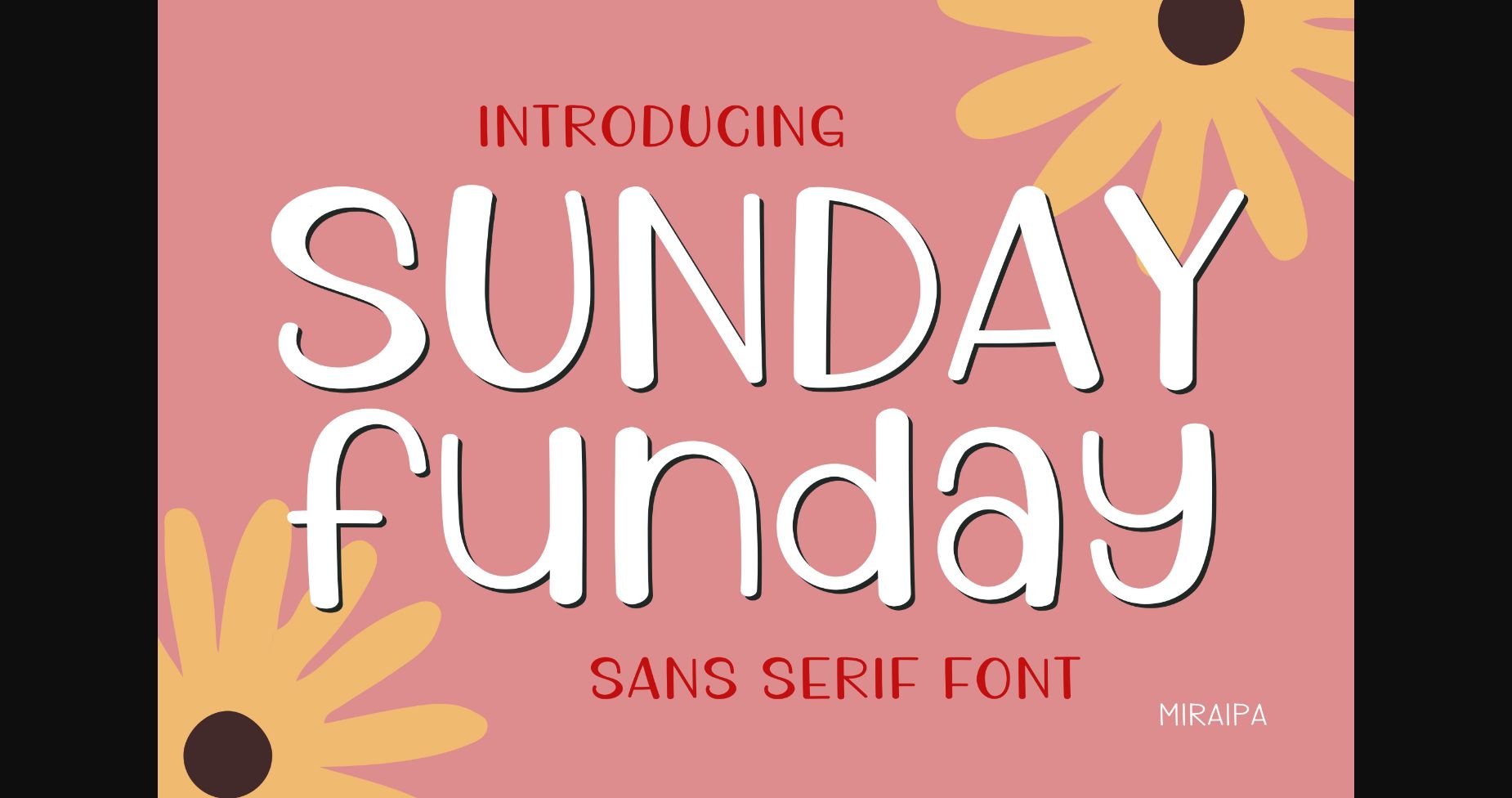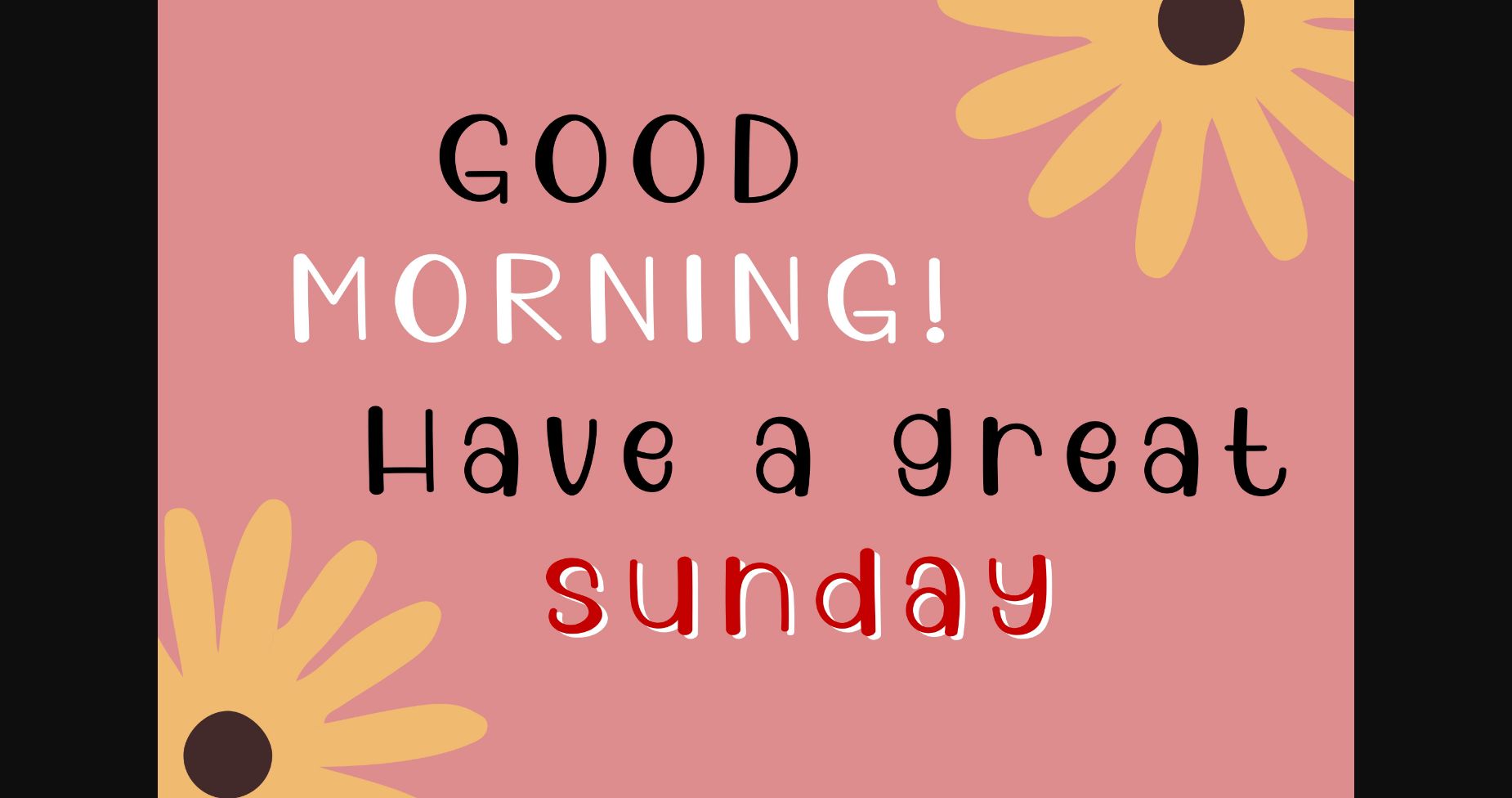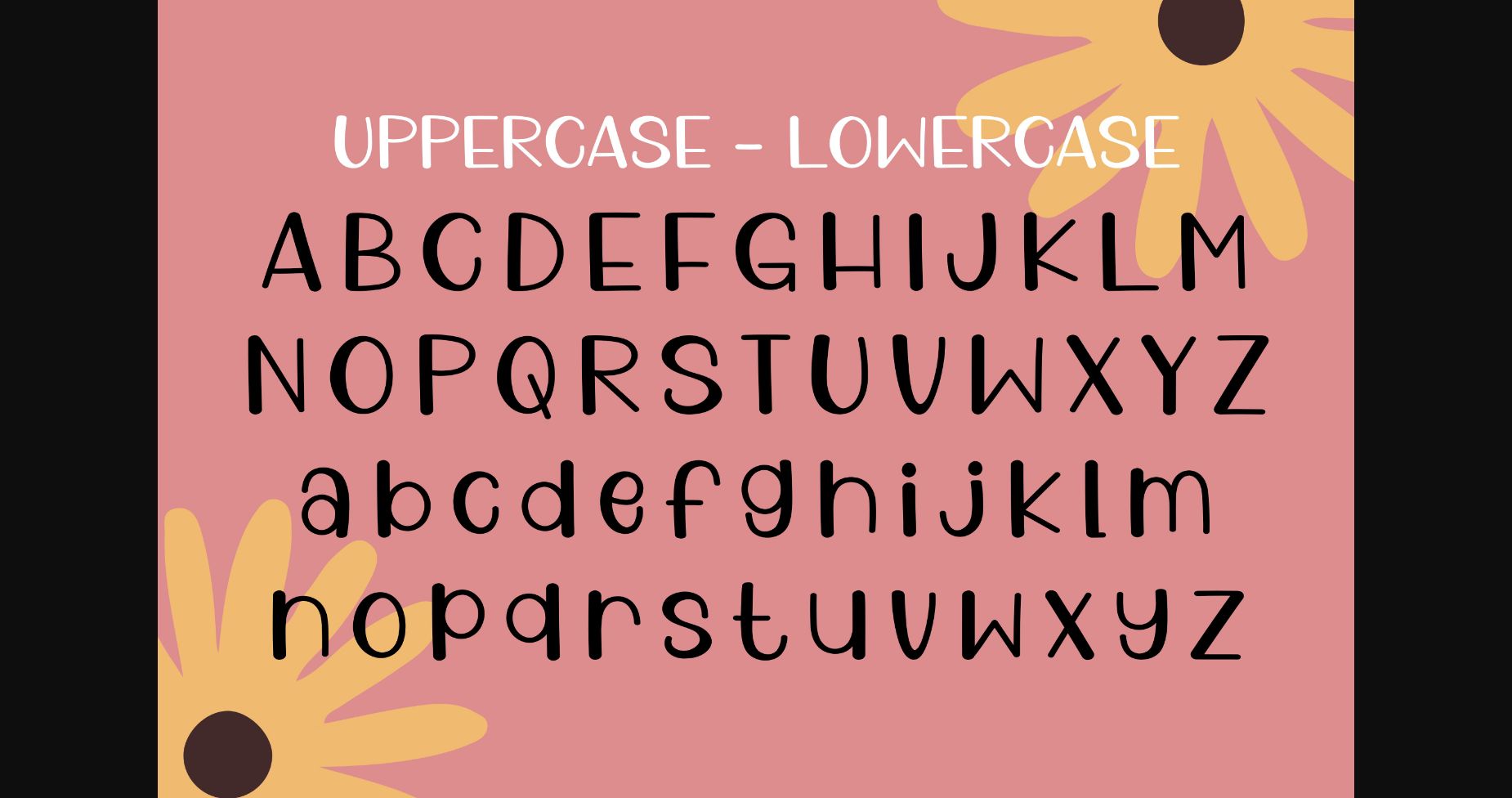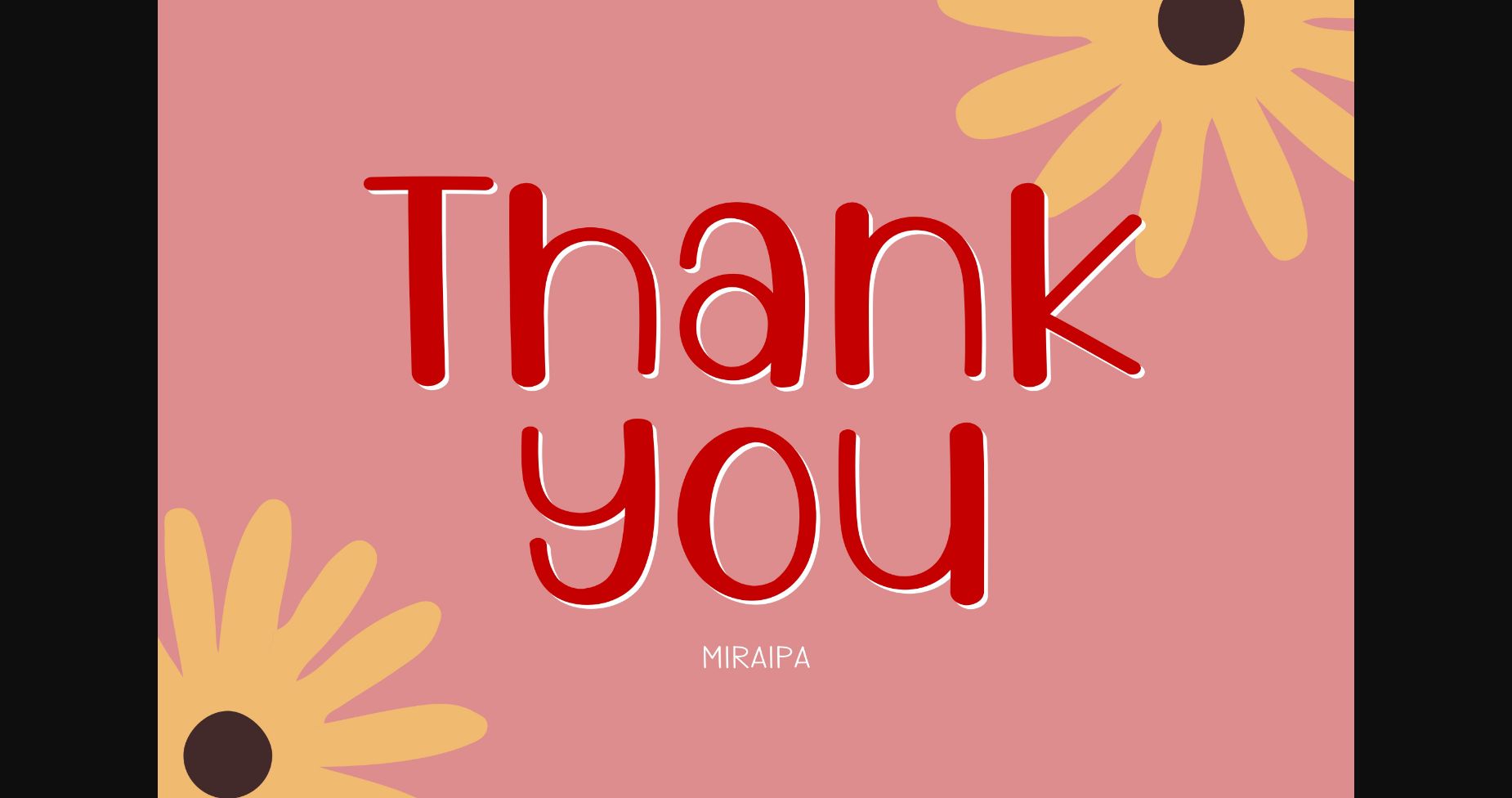
HomeSans Serif FontsSunday Funday Font Sans Serif Fonts Sunday Funday Font FacebookXPinterestWhatsApp 1 of 7 ... Sunday Funday Font Poster 2... Sunday Funday Font Poster 3... Sunday Funday Font Poster 4... Sunday Funday Font Poster 5... Sunday Funday Font Poster 6... Sunday Funday Font Poster 7... About Sunday Funday Font Sunday Funday is a whimsical and cute handwritten sans serif font. Fall in love with it and bring your projects to the highest levels! DOWNLOAD NOW People also explored Quicken Between Century Realistic Mock-ups on Vintage Background Sweet Cat Font DDT Variable Tanya Hati – Signature Script Font Baby Flower Font Aljamain Font Lattus Brighteny Font 339 0 TagsSunday Funday Font Previous articleBotes FontNext articleEaster Be Hoppy Font LEAVE A REPLY Cancel reply Comment: Please enter your comment! Name:* Please enter your name here Email:* You have entered an incorrect email address! Please enter your email address here Website: Save my name, email, and website in this browser for the next time I comment. Personal Use Free Bollado Personal Use Free Read more about this font Silver Bullet Personal Use Free Read more about this font Bethania Personal Use Free Read more about this font Boldace Personal Use Free Read more about this font BLOG Top 7 Google Fonts Alternatives for Faster and Privacy-Friendly Web Design (2025) Top 7 Google Fonts Alternatives for Faster and Privacy-Friendly Web Design (2025) When it comes to web typography, Google Fonts has long been the go-to... How to Install and Use Fonts on Windows, macOS, and Web Projects Modern Sans-Serif Fonts That Brands Love in 2025 Best Fonts for YouTube Videos: Make Your Thumbnails Stand Out